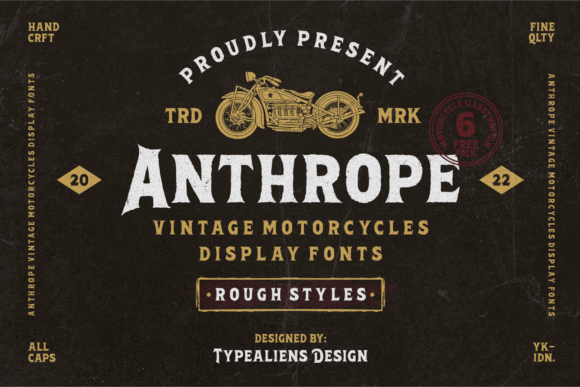
Antrope Font: A Grunge Serif Font with a Manly Touch
In the world of typography, fonts play a crucial role in conveying the tone and personality of a design. When it comes to creating a bold and rugged look, the Antrope font is an excellent choice. This serif font with a grunge style exudes a retro vibe, making it perfect for designs related to male hobbies such as motorbikes. In this article, we’ll dive deeper into the features and characteristics of the Antrope font and explore its uses in various design projects.
What is Antrope Font?
Antrope is a serif font with a grunge style that gives it a unique, retro look. The font features a thick body that makes it appear strong and masculine, perfect for designs that require a bold and rugged touch. The grunge style of the font adds a layer of texture and distress, giving it a worn, vintage feel that’s reminiscent of the 90s.
Key Features of Antrope Font
The Antrope font has several key features that make it stand out from other fonts. Some of its notable features include:
- Serif font with a grunge style: The font’s serif style gives it a classic look, while the grunge style adds a layer of texture and distress.
- Thick body: The font’s thick body makes it appear strong and masculine, perfect for designs that require a bold and rugged touch.
- All-caps font: The Antrope font is an all-caps font, which adds to its manly impression. The font’s uppercase letters are designed to be bold and attention-grabbing.
- Retro vibe: The font’s grunge style gives it a retro vibe that’s reminiscent of the 90s.
Uses of Antrope Font
The Antrope font is perfect for designs related to male hobbies such as motorbikes, sports, and outdoor activities. Its bold and rugged look makes it an excellent choice for:
- Motorbike designs: The font’s manly impression and grunge style make it perfect for motorbike-related designs, such as logos, posters, and brochures.
- Sports designs: The font’s bold and rugged look makes it an excellent choice for sports-related designs, such as team logos, jerseys, and sports equipment.
- Outdoor designs: The font’s retro vibe and grunge style make it perfect for outdoor-related designs, such as camping gear, hiking equipment, and outdoor apparel.
Benefits of Using Antrope Font
Using the Antrope font in your design projects offers several benefits, including:
- Unique look: The font’s grunge style and thick body give it a unique look that sets it apart from other fonts.
- Attention-grabbing: The font’s bold and rugged look makes it attention-grabbing and perfect for designs that require a strong visual impact.
- Manly impression: The font’s all-caps style and thick body give it a manly impression that’s perfect for designs related to male hobbies.
- Use it for headlines: The Antrope font is perfect for headlines and titles, where its bold and rugged look can make a strong visual impact.
In conclusion, the Antrope font is a unique and versatile font that’s perfect for designs related to male hobbies such as motorbikes, sports, and outdoor activities. Its bold and rugged look, combined with its grunge style and thick body, make it an excellent choice for designs that require a strong visual impact. Whether you’re a designer, artist, or DIY enthusiast, the Antrope font is a great addition to your typography toolkit.